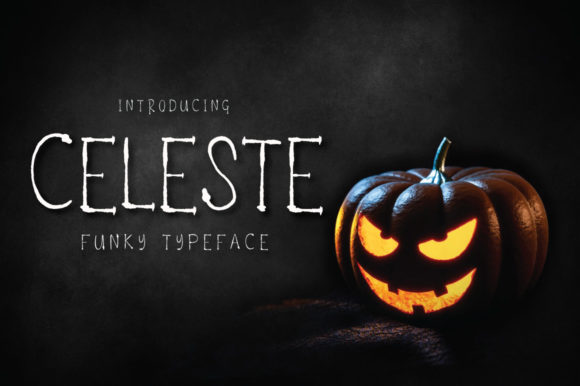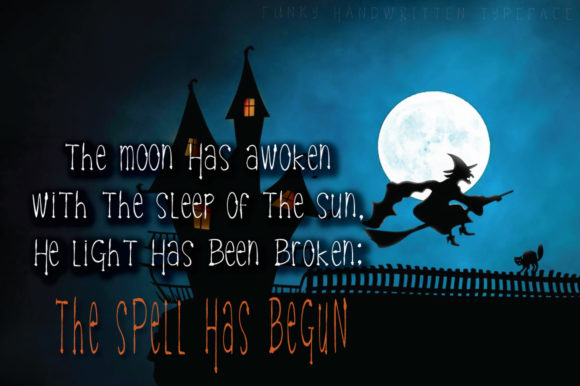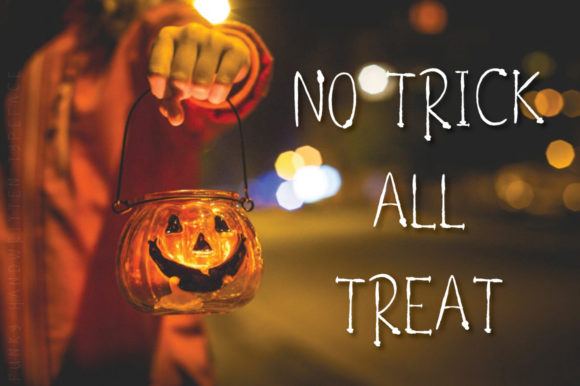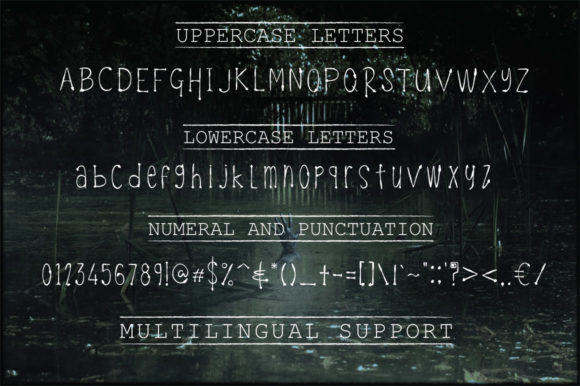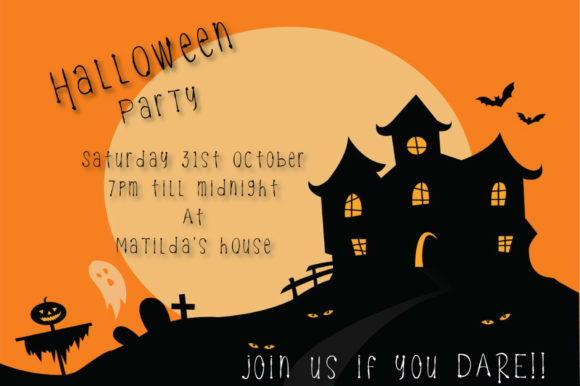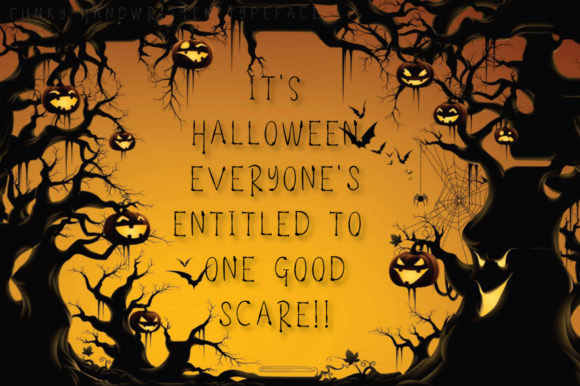
HomeScript FontsCeleste Font Script Fonts Celeste Font FacebookXPinterestWhatsApp Celeste Font Poster 2 Celeste Font Poster 3 Celeste Font Poster 4 Celeste Font Poster 5 Celeste Font Poster 6 About Celeste Font The Celeste is a funky typeface with a relaxed feel. It can be used for logos, invitations, or scary designs! DOWNLOAD NOW People also explored Celosia Nature Font Cino Font Melanie Font Aprilia Maudy Font Undersoon Font Swiming Font Damia Font Birthday Script Font Weysle Font 309 0 TagsCeleste Font Previous articleHugging Hippo FontNext articleEscucha Consuela Duo Font LEAVE A REPLY Cancel reply Comment: Please enter your comment! Name:* Please enter your name here Email:* You have entered an incorrect email address! Please enter your email address here Website: Save my name, email, and website in this browser for the next time I comment. Personal Use Free Ardilla Font Personal Use Free Read more about this font Rembank Personal Use Free Read more about this font Senza Bella Personal Use Free Read more about this font Husky Stash Personal Use Free Read more about this font BLOG How to Install and Use Fonts on Windows, macOS, and Web Projects How to Install and Use Fonts on Windows, macOS, and Web Projects Fonts are a crucial part of design and branding. Whether you’re designing a... Best Fonts for T-Shirt Design – Top 2025 Picks How to Cut Any Font on Cricut: Convert a Font to SVG (Free) Free vs Paid Fonts: Why Investing in Premium Fonts Is Worth It